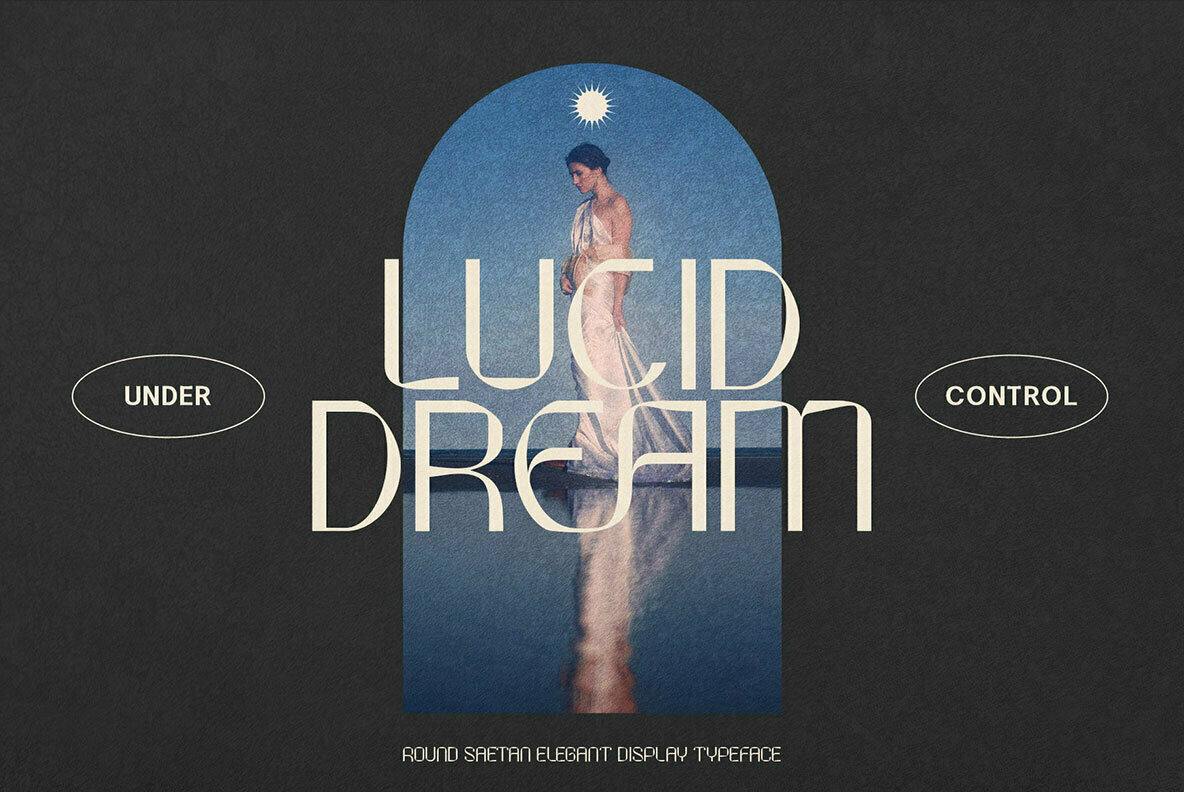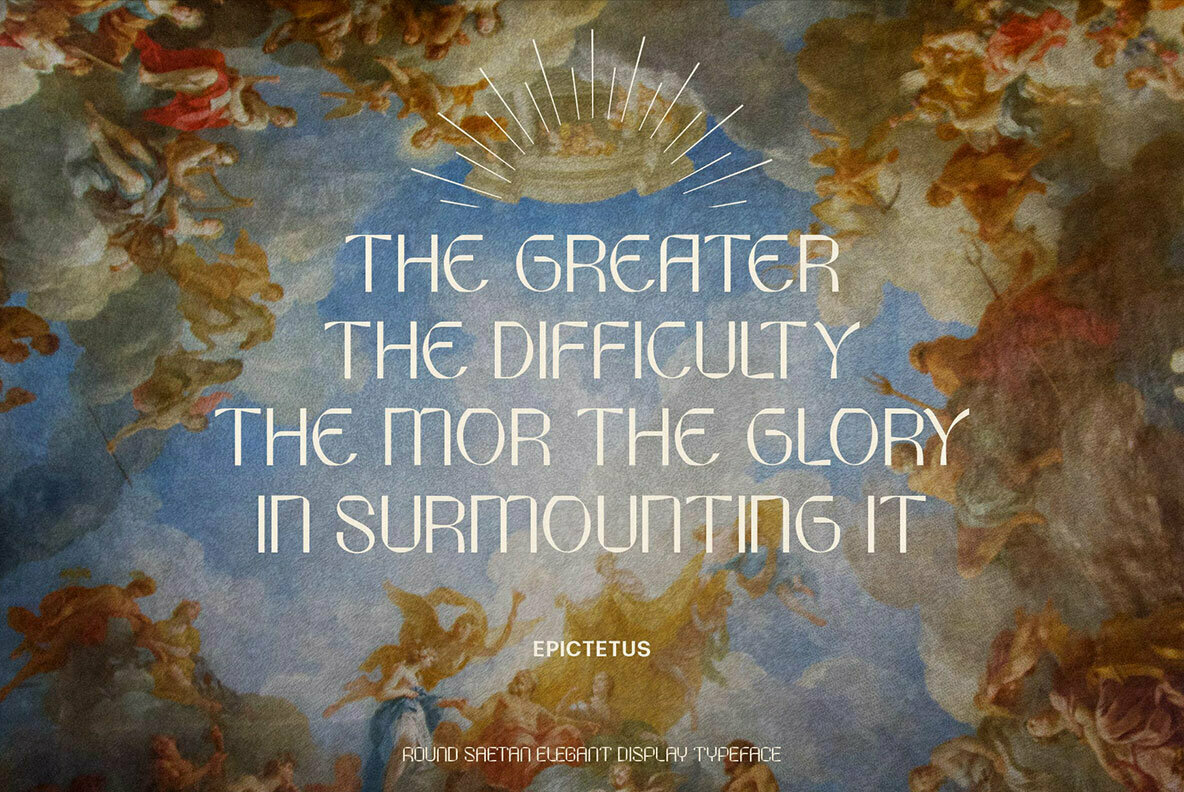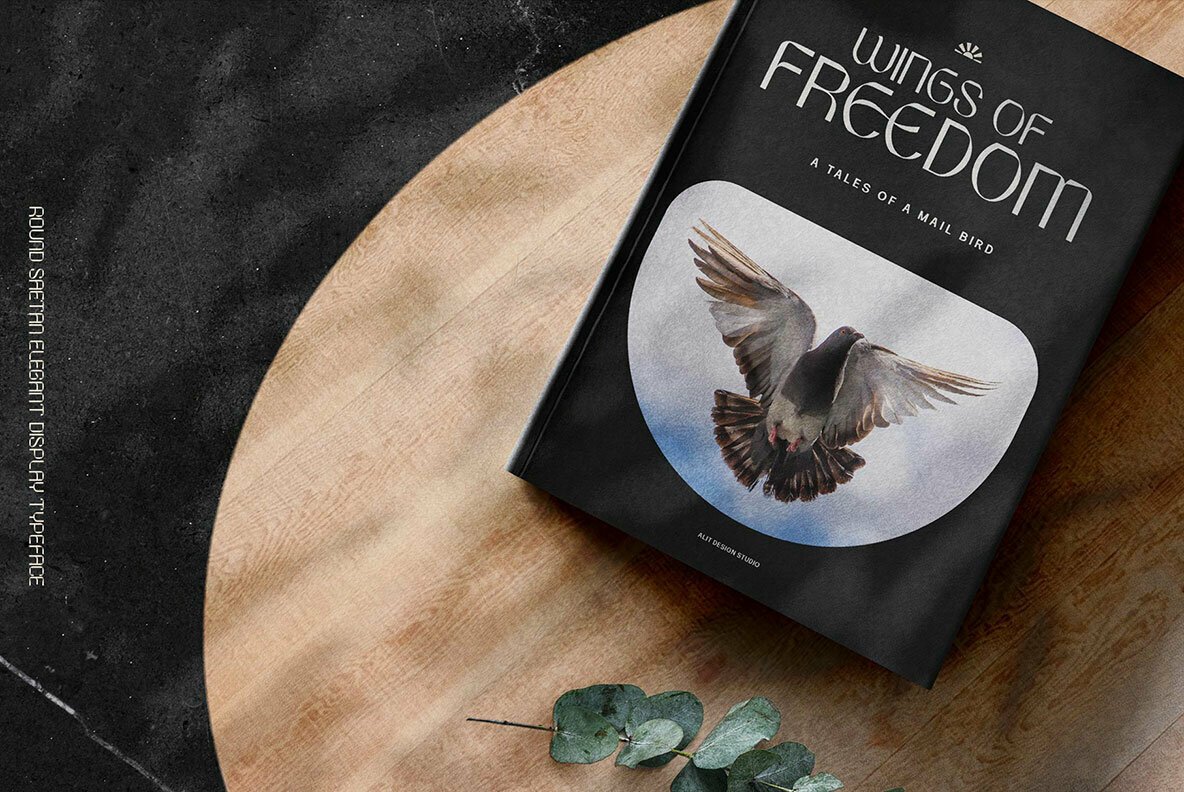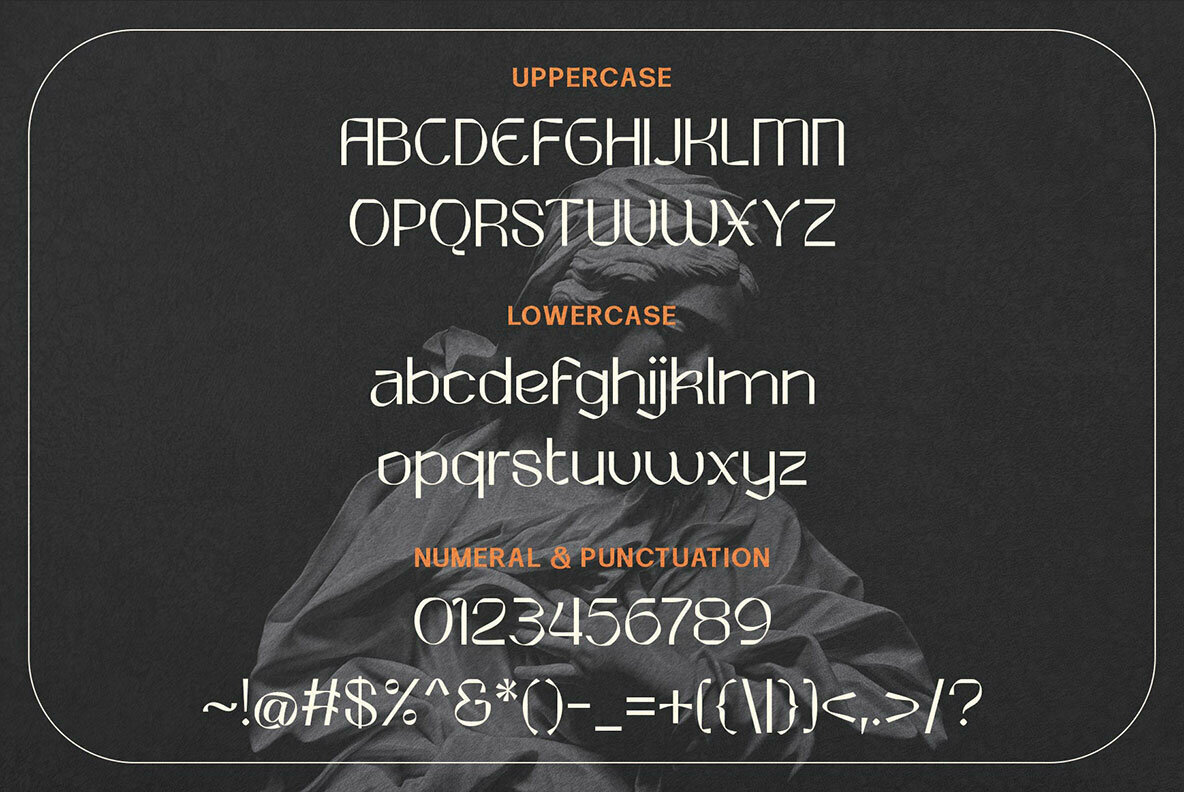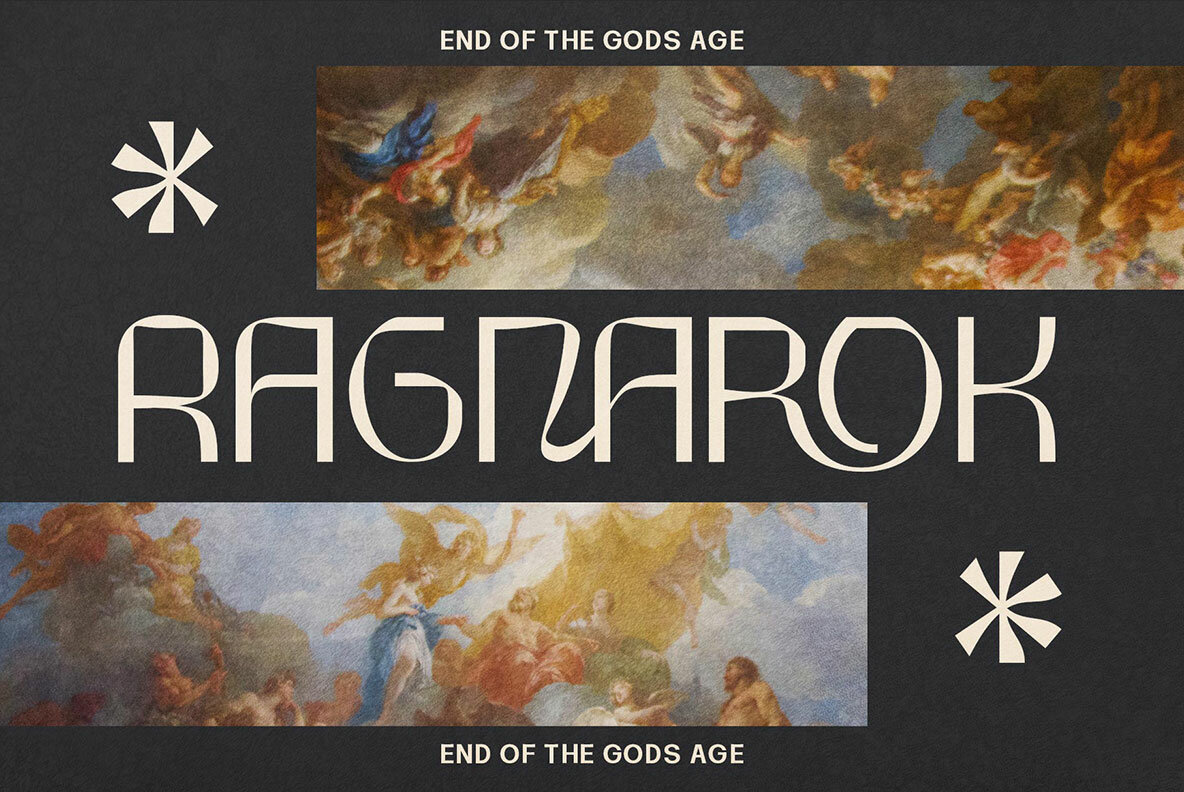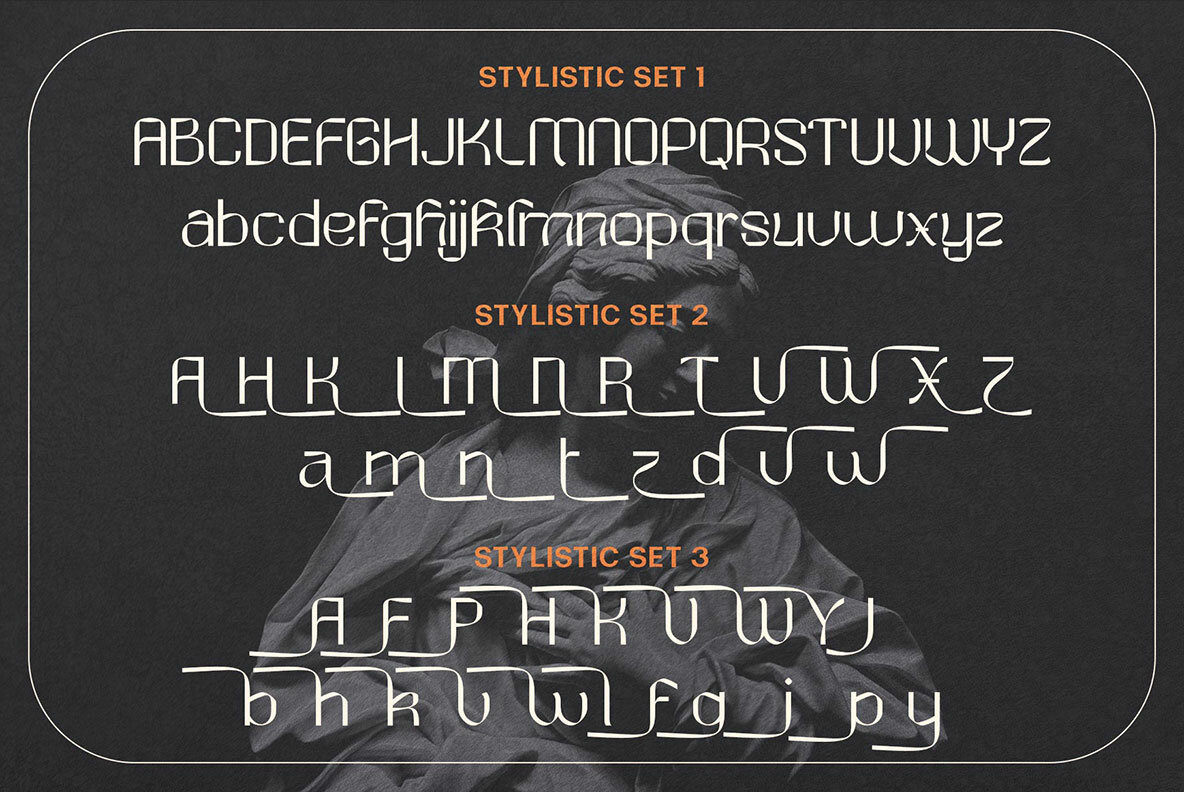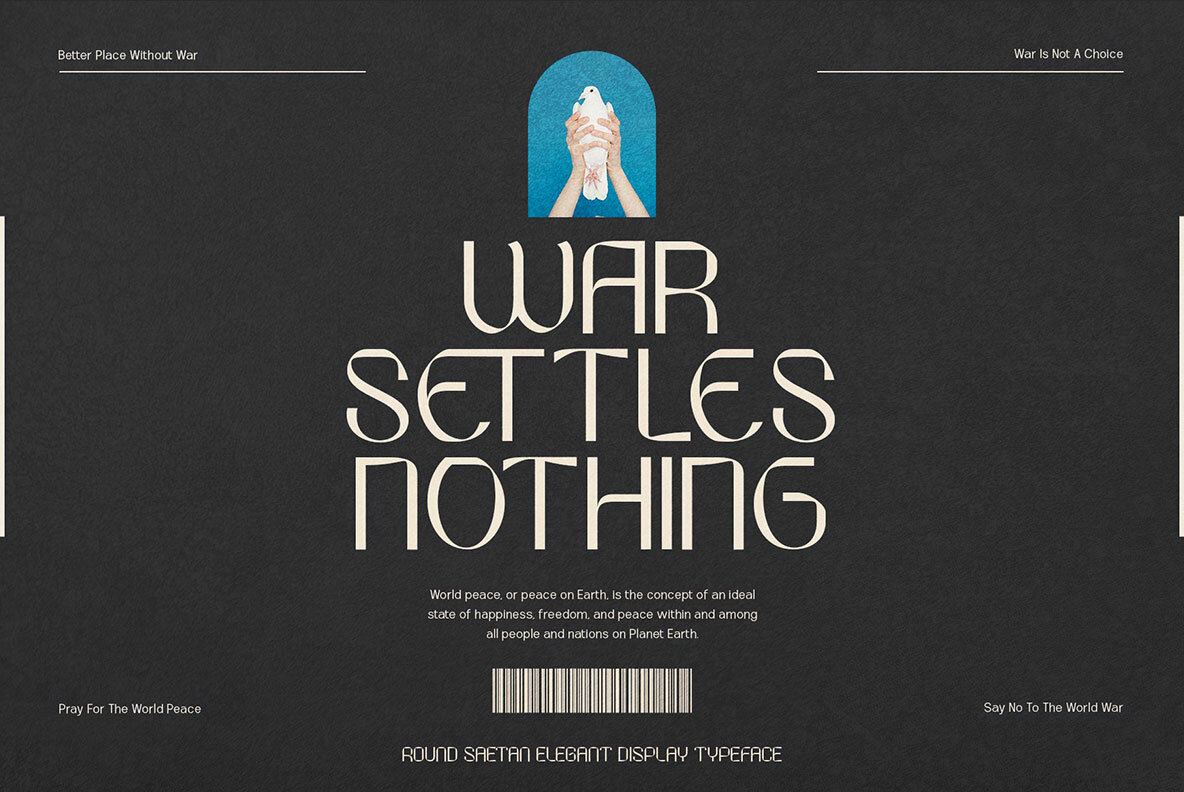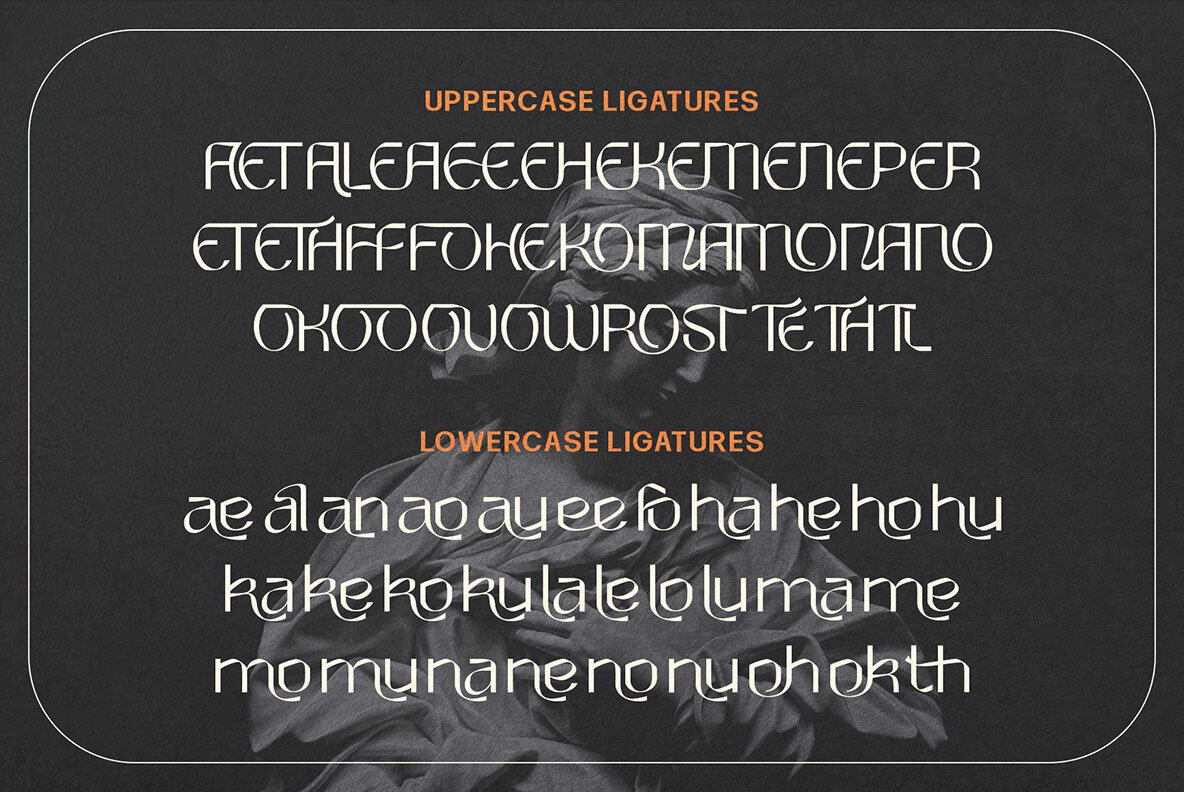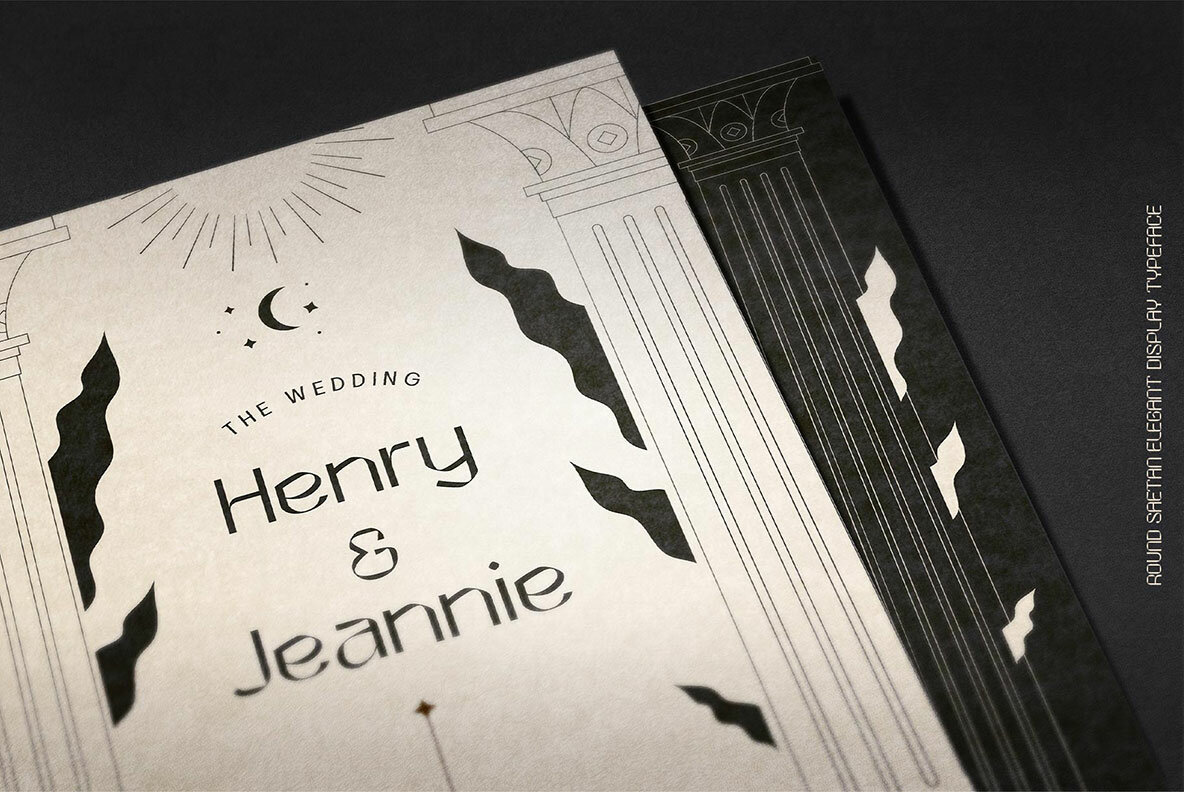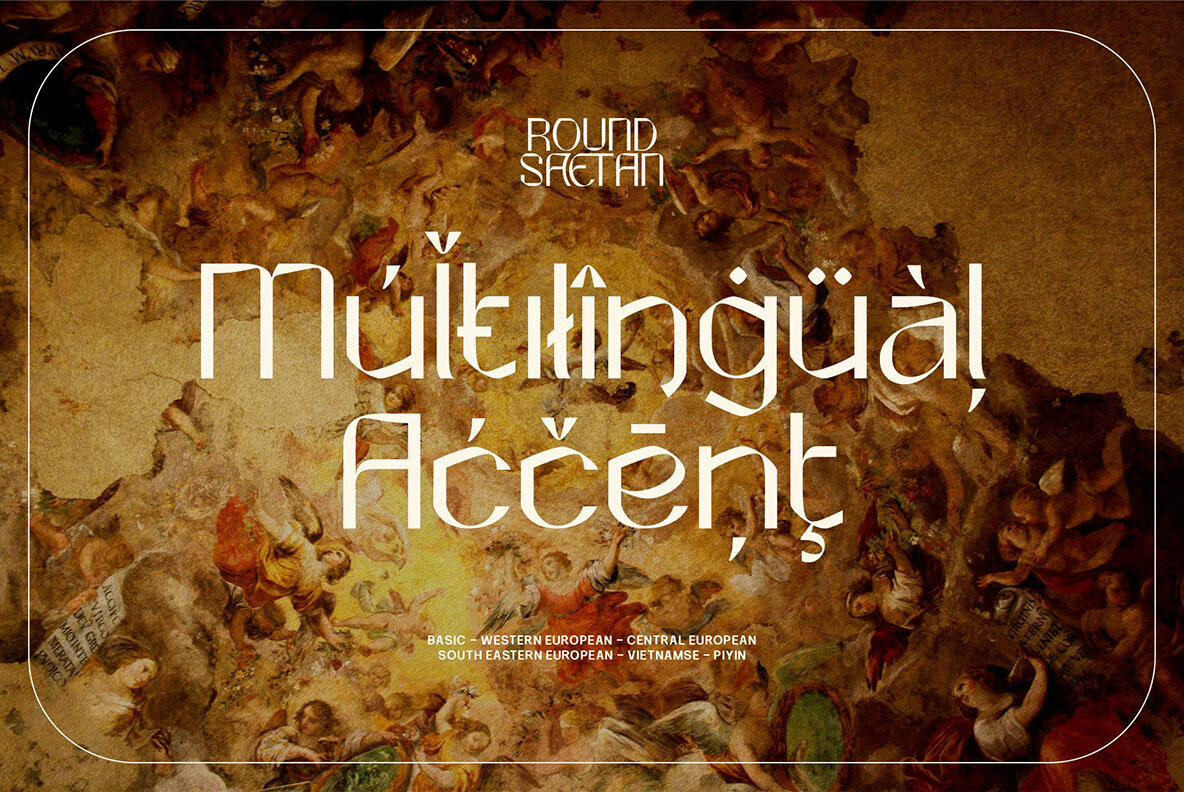
The Round Saetan typeface is a modern, unique font that has an impressionist design. The sans-serif style adopted by this typeface gives it its own distinctive look and feel because of the large selection ligatures available for use on any project where they may be needed most--in your text or logos! This particular script comes complete with 662 letters - all carefully crafted specifically to suit whatever purpose needs arise while using these beautiful glyphs as part